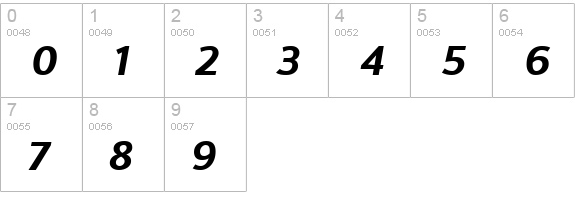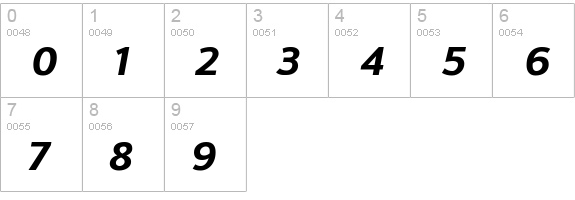
Doradani Rg Bold Italic is a strong, high-contrast, italic variant in the Doradani typeface family \xE2\x80\x94 well suited to headlines, attention-grabbing titles, and strong calls-to-action.
Doradani Rg Bold Italic is a stunning and versatile font that exudes elegance and sophistication. With its bold and italicized design, this typeface is perfect for making a bold statement in your designs. The sleek lines and curves of Doradani Rg Bold Italic add a touch of modernity and flair to any project. Best of all, Doradani Rg Bold Italic is available for free download at FontsMarket.com. Whether you're working on a branding project, a website design, or any other creative endeavor, this font is sure to make a lasting impression. Download Doradani Rg Bold Italic today and elevate your designs with its timeless charm and contemporary appeal.